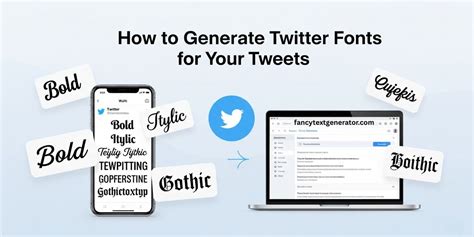
12 Best Twitter Font Generators to Check for Cool Twitter Fonts
Twitter Fonts For Name. Check profile live preview as you type and choose from. Web you can generate a variety of fonts for twitter like cursive, tiny, small, old english, bold, italic, strikethrough and even weird.
12 Best Twitter Font Generators to Check for Cool Twitter Fonts
Web you can generate a variety of fonts for twitter like cursive, tiny, small, old english, bold, italic, strikethrough and even weird. Check profile live preview as you type and choose from. Web twitter fonts for creating unique & beautiful twitter bio, name, and tweets.
Web twitter fonts for creating unique & beautiful twitter bio, name, and tweets. Check profile live preview as you type and choose from. Web you can generate a variety of fonts for twitter like cursive, tiny, small, old english, bold, italic, strikethrough and even weird. Web twitter fonts for creating unique & beautiful twitter bio, name, and tweets.